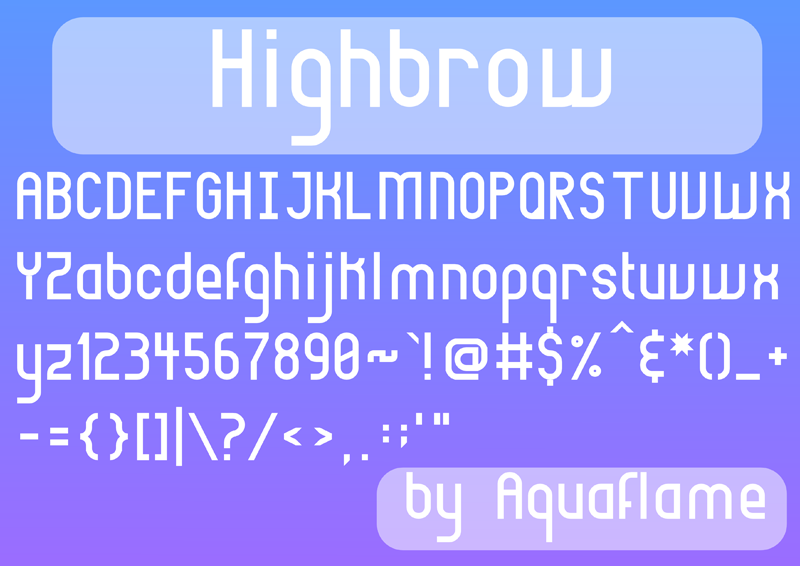
Font name: | Highbrow |
Author: | Aquaflame Fonts |
Note by Aquaflame Fonts | |
This is a font that I made called Highbrow. Highbrow is a simple and stylish font that looks good in many places. It is constantly being updated with new characters and symbols as time goes on. Please note, this font is free for personal use only. If you want to use it for commercial use, we must make an agreement. |